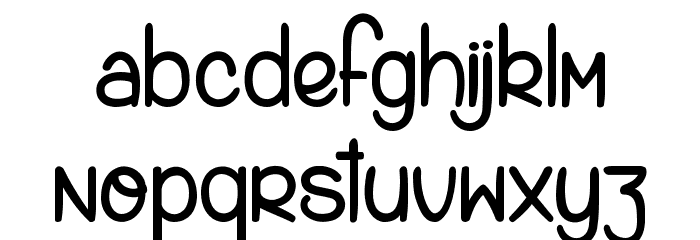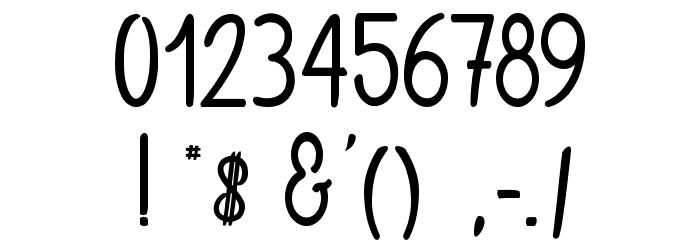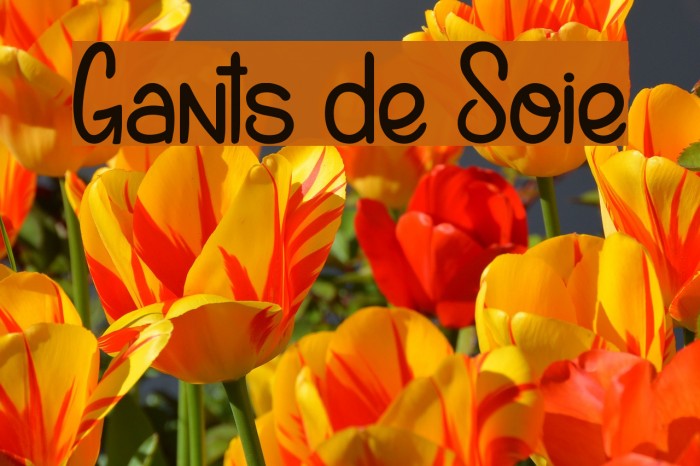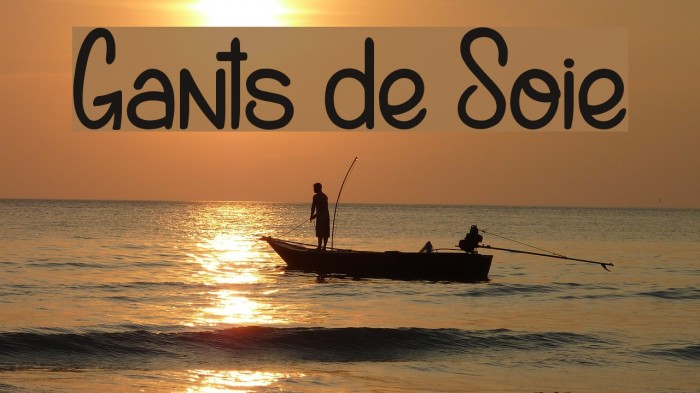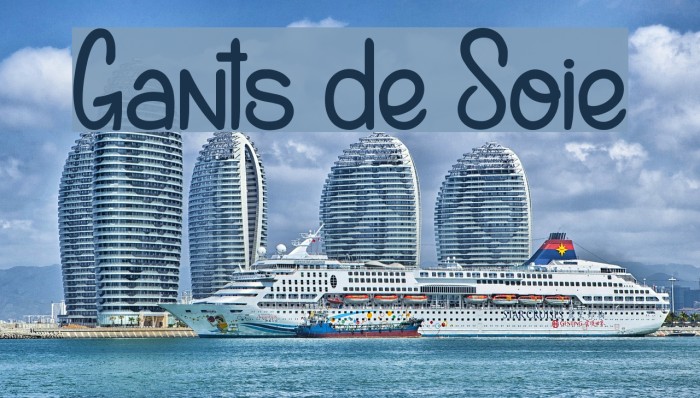
Gants de Soie Font
This playful and whimsical font features a handwritten style with a casual and friendly appearance. The letters are slightly irregular, adding a personal touch that mimics natural handwriting. The strokes are smooth and rounded, giving it a soft and approachable feel. The uppercase and lowercase letters are well-balanced, with a consistent flow throughout. Numbers and special characters maintain the same playful aesthetic, making this font versatile for various uses. Its informal style is perfect for projects that require a touch of creativity and warmth.
- Font: Gants de Soie
- Proposed Projects: Ideal for greeting cards, children's books, informal invitations, and creative branding.
- Category: Handwritten
- Overall Style: Casual, Whimsical
- Use Case: Headlines, Informal text, Creative projects